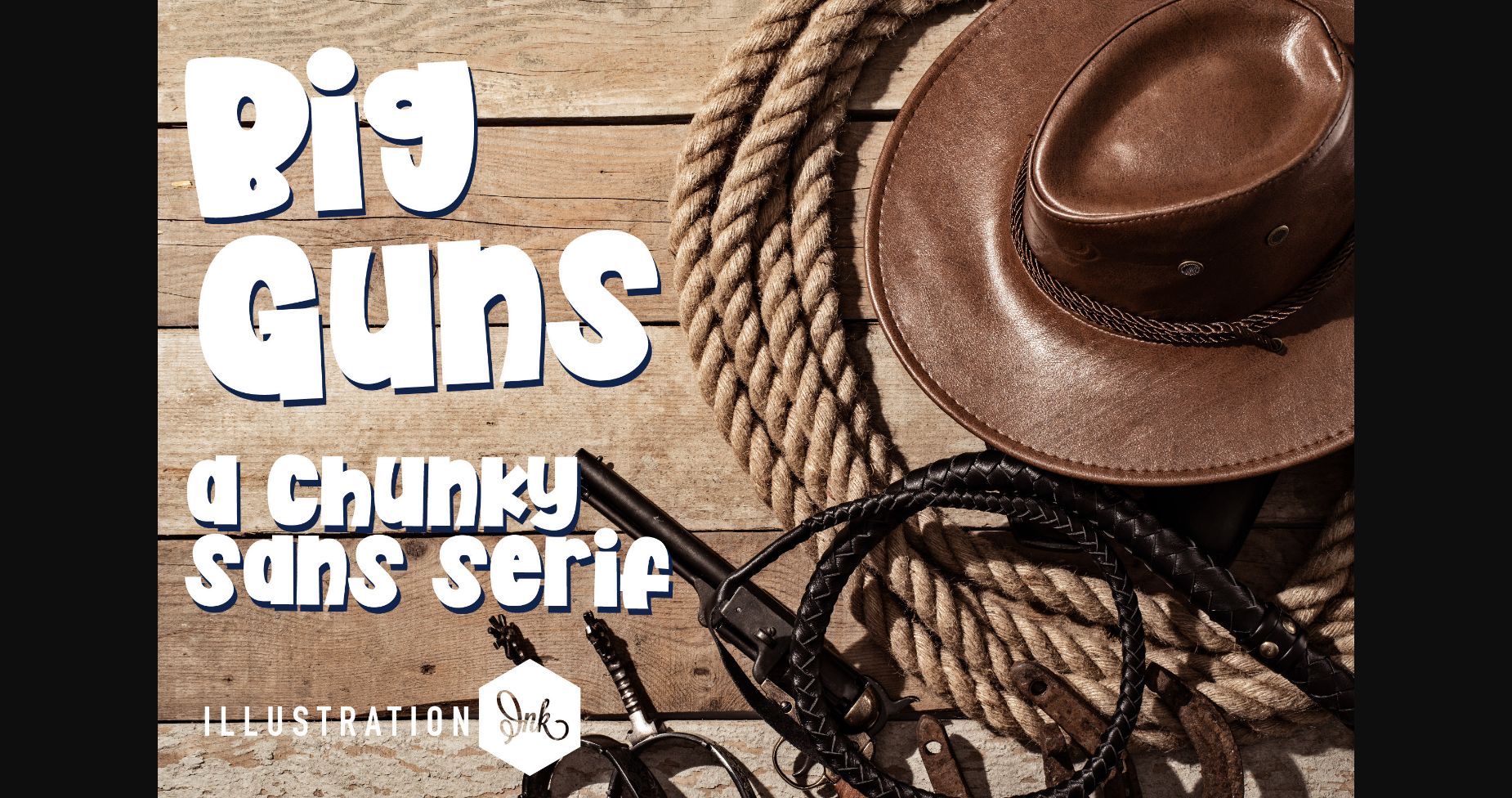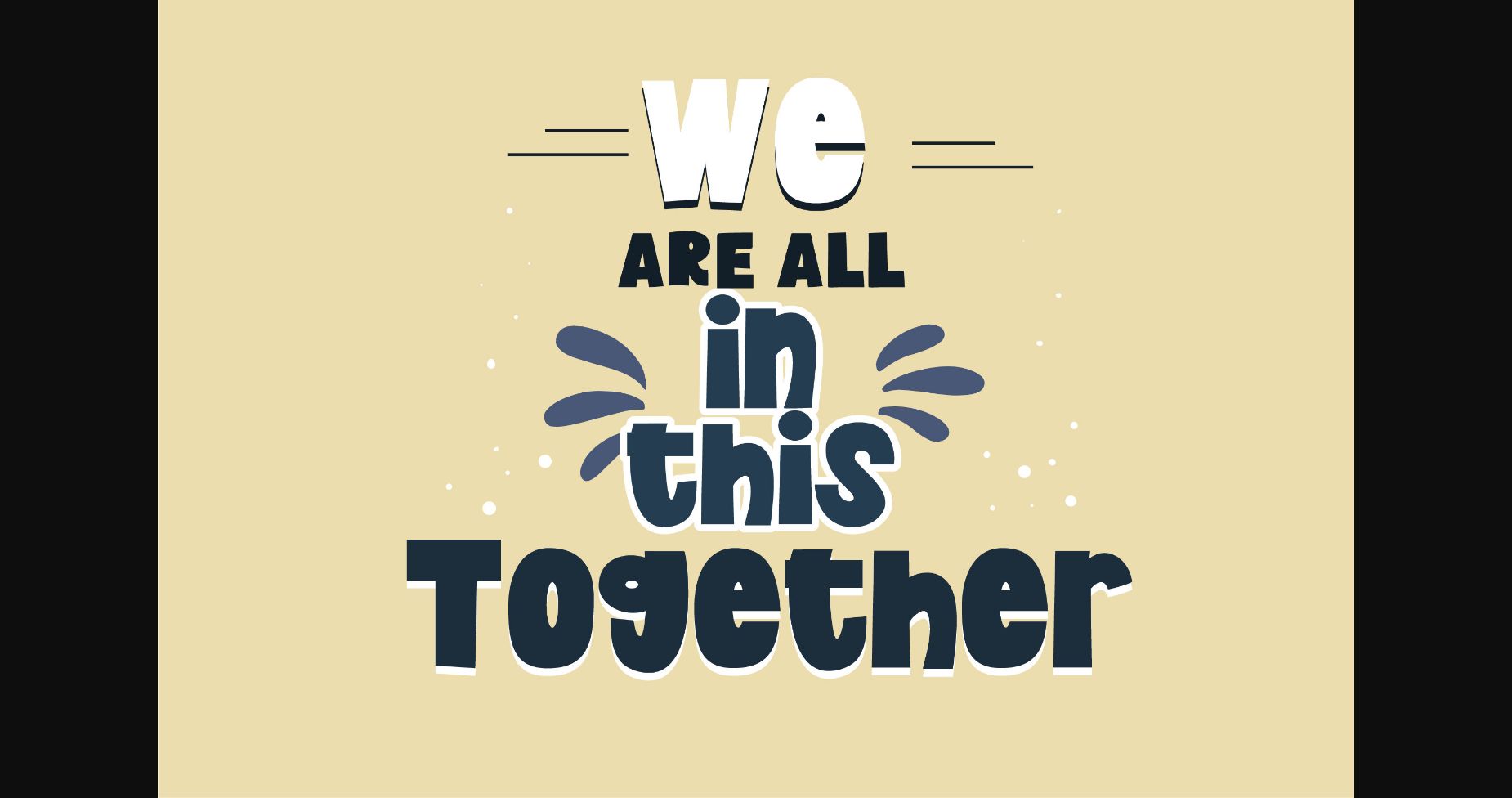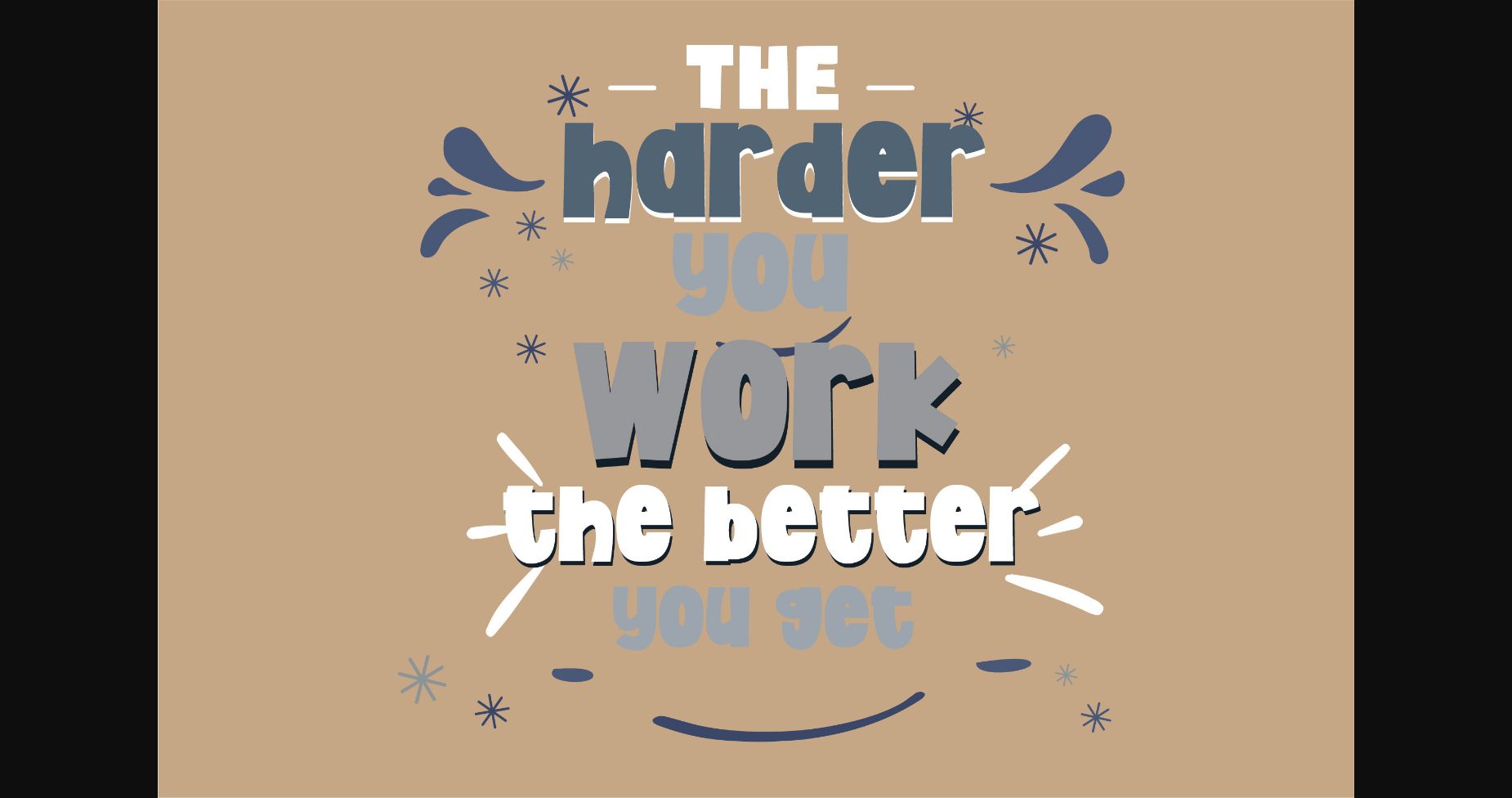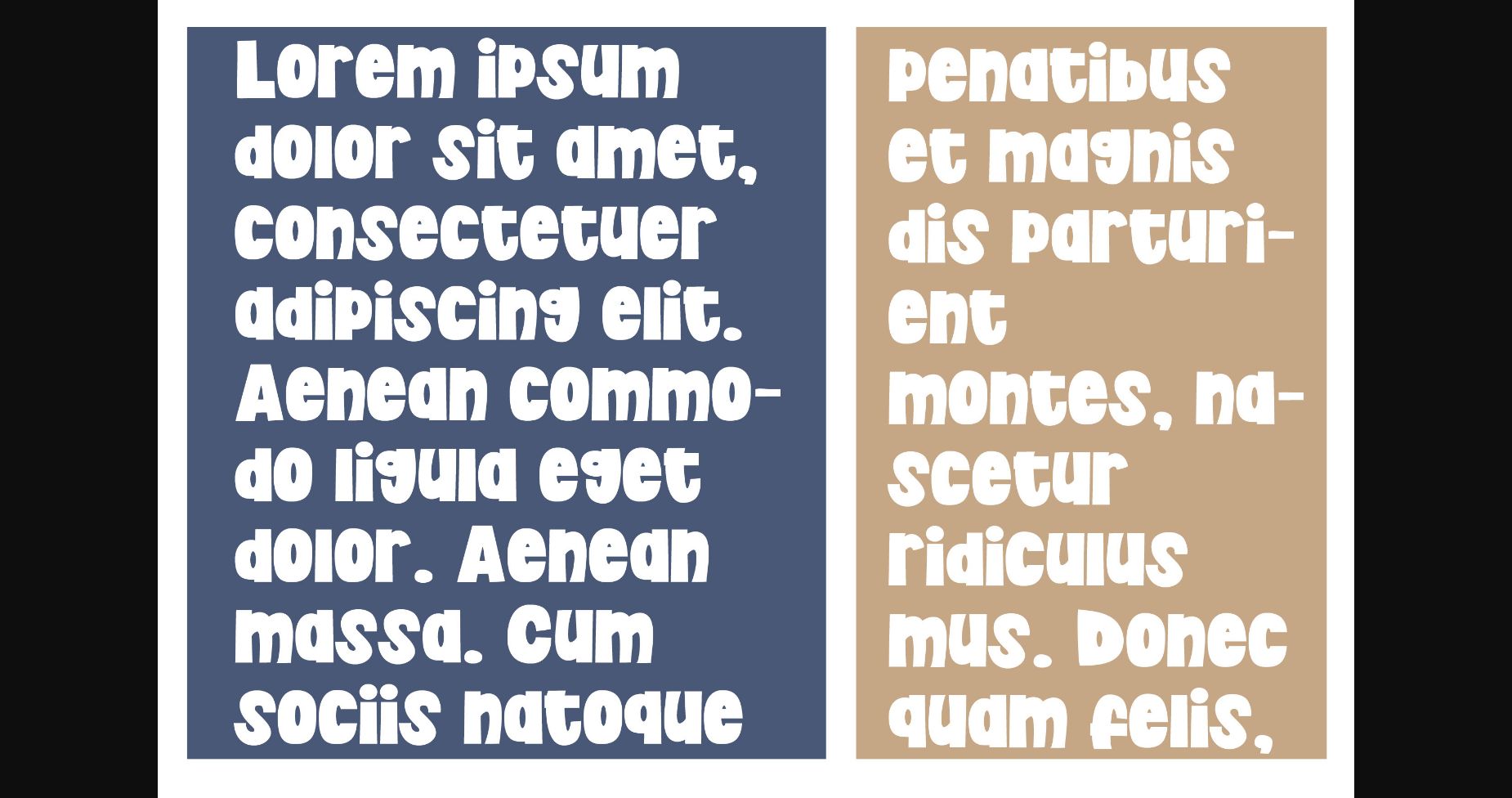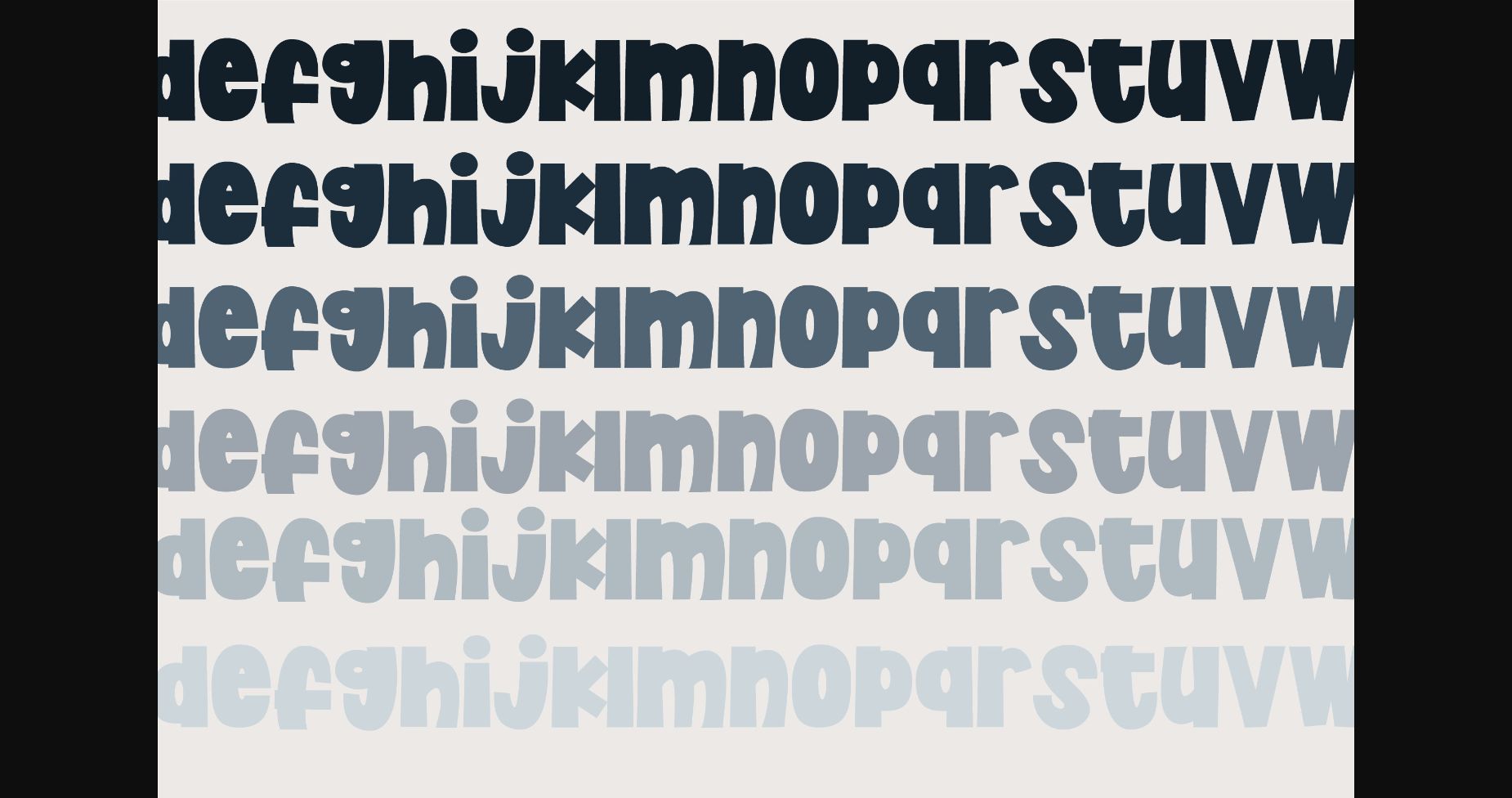
About Big Guns Font
Big Guns is a captivating blend of minimalism and creativity, with a unique design that catches the eye. Its clean lines and geometric shapes give it a modern and polished look that’s perfect for branding, web design, and other projects where clarity and simplicity are key. With its striking beauty, it’s sure to make an impact.